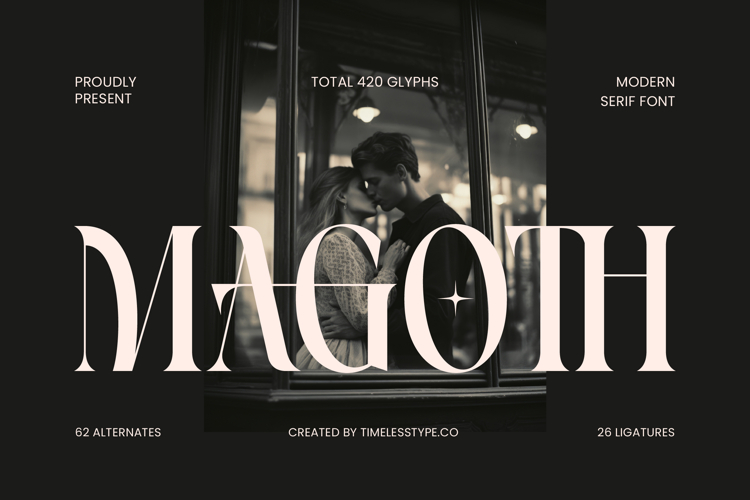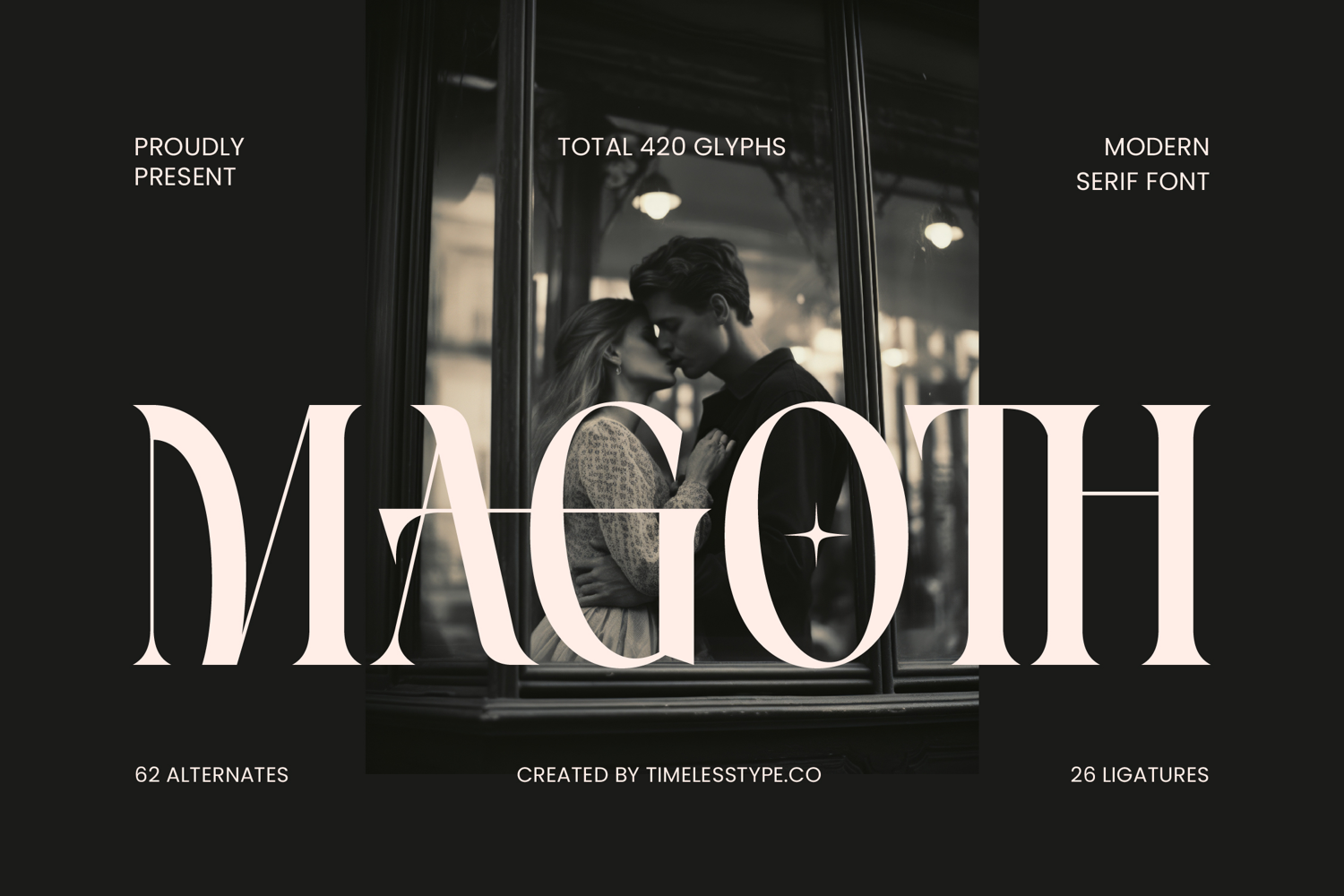
Magoth - Modern Serif Font
Elevate your designs to a realm of unparalleled sophistication with Magoth - Modern Serif Font. This exquisite typeface masterfully blends classic serif elegance with a contemporary edge, featuring striking high-contrast strokes and refined details. Its clean lines and timeless appeal ensure your message is delivered with undeniable grace and professional authority.
Unleash a spectrum of creative possibilities with Magoth - Modern Serif Font's robust OpenType features. Boasting an impressive collection of 62 alternates and 26 ligatures, this font provides unparalleled design flexibility, allowing you to craft truly unique typography that stands out. It's engineered for designers who demand both style and versatility.
With its extensive multilingual support, Magoth - Modern Serif Font adapts seamlessly across global markets, making it incredibly versatile for international projects. This comprehensive language coverage ensures your brand communicates effectively, resonating with diverse audiences worldwide and reinforcing its global presence.